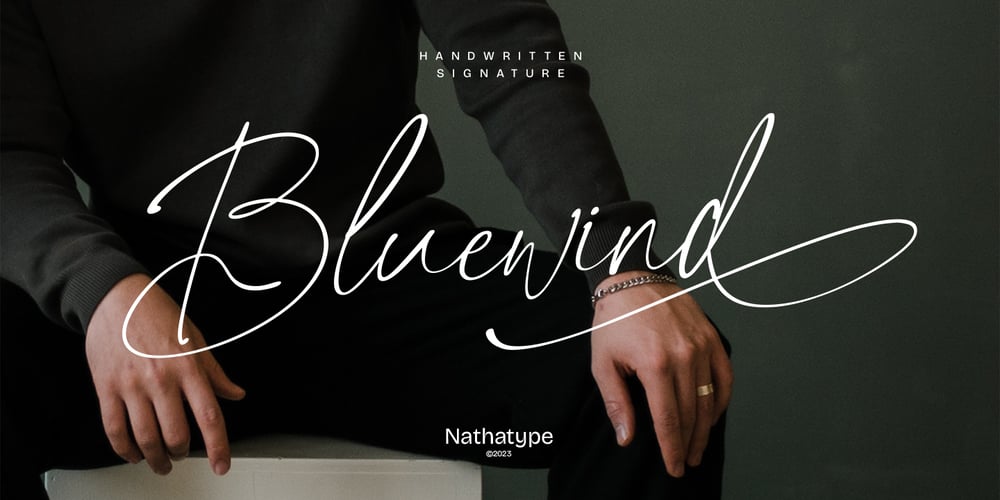
Bluewind
Bluewind font
Bluewind Font Family was designed by Donis Miftahudin and published by Nathatype. Bluewind contains 1 styles and family package options. Bluewind is an elegant script font that is designed to replicate the beauty of a handwritten signature. Every letter in this font is crafted with a subtle and low-contrast approach creating an effortless appearance reminiscent of an artist’s signature on paper. The calibrated spacing and graceful curves ensure that it remains not only visually captivating but also easy to read. You can use this font in headlines, logos, posters, invitations, name cards, branding materials, and many more.